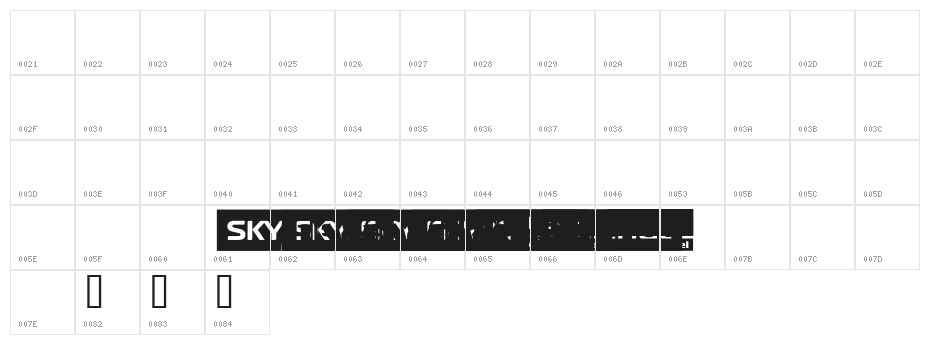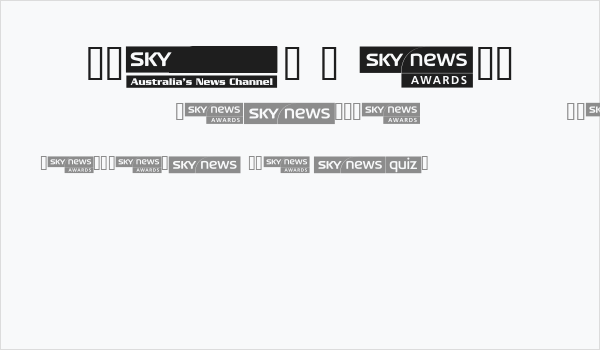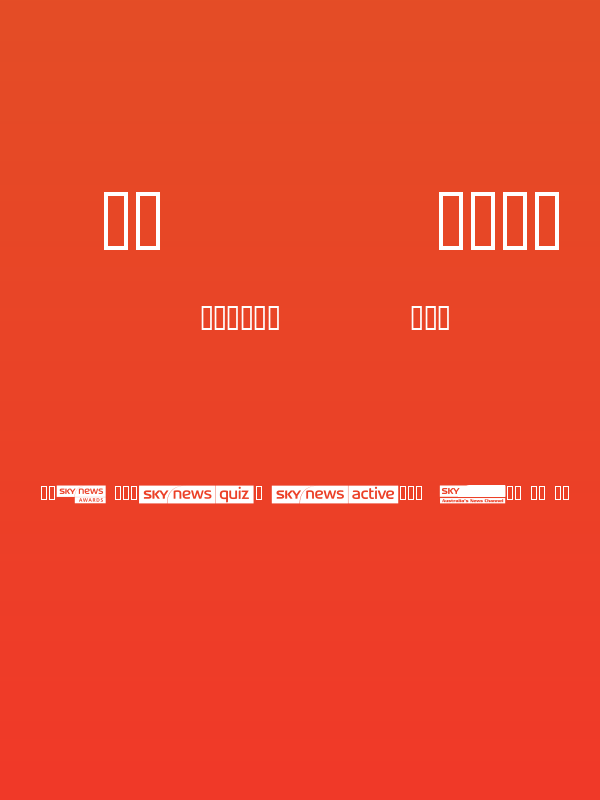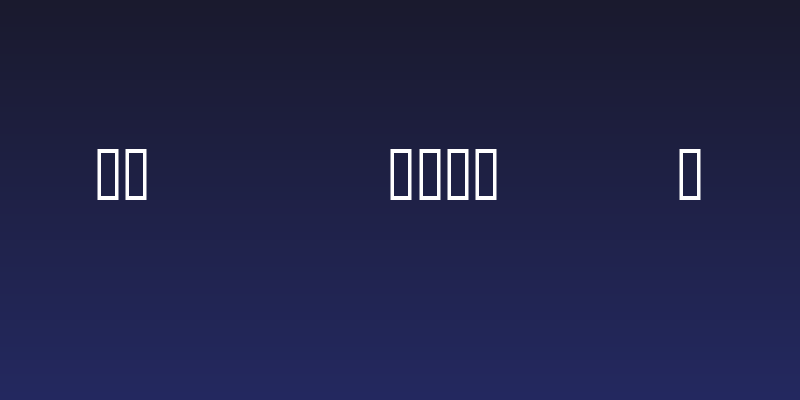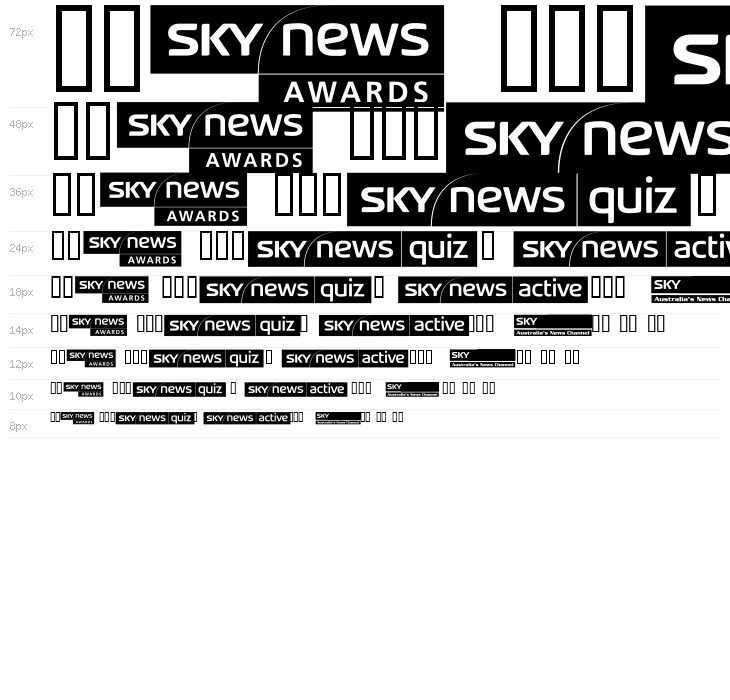
SKYfontnews Font
SKYfontnews Description
This font is characterized by its bold, geometric shapes and strong presence. The letters are square and blocky, with a consistent thickness throughout, giving it a modern and authoritative feel. The uppercase and lowercase letters maintain a uniform height, which adds to the font's structured and clean appearance. The numbers and special characters follow the same design principles, ensuring a cohesive look across all elements. This font is highly legible and makes a strong visual impact, suitable for various design applications.